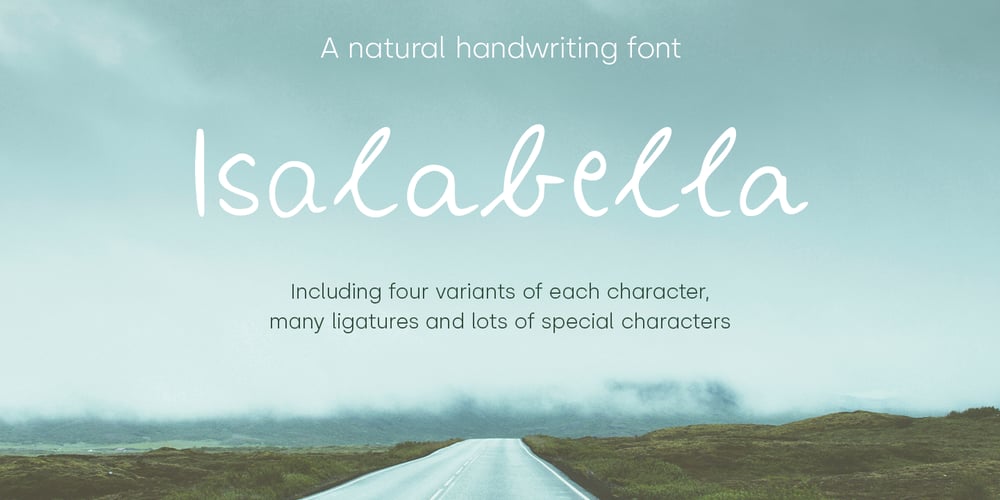
Isalabella Font Family was designed by Anouk Hinoran and published by Maklabu Lab. Isalabella contains 1 styles and family package options. Isalabella is a handmade script with a natural look that simulates true handwriting. This is achieved by typesetting alternates of each character randomly, and by combining these character variations differently.Isalabella offers outstanding open type features such as the whole Adobe Latin Set, contextual alternates (4 variants for each character), stylistic sets and many ligatures.